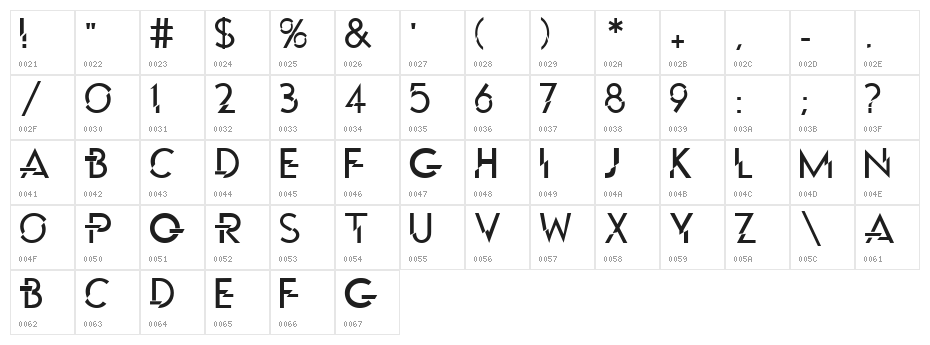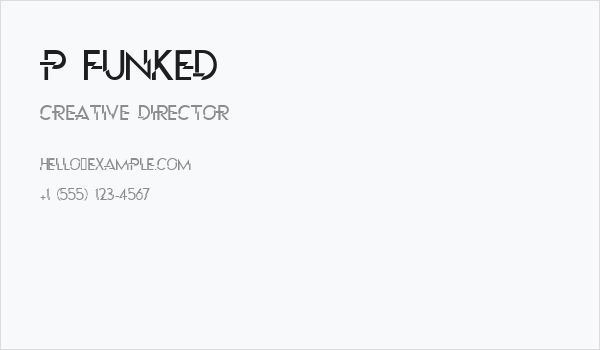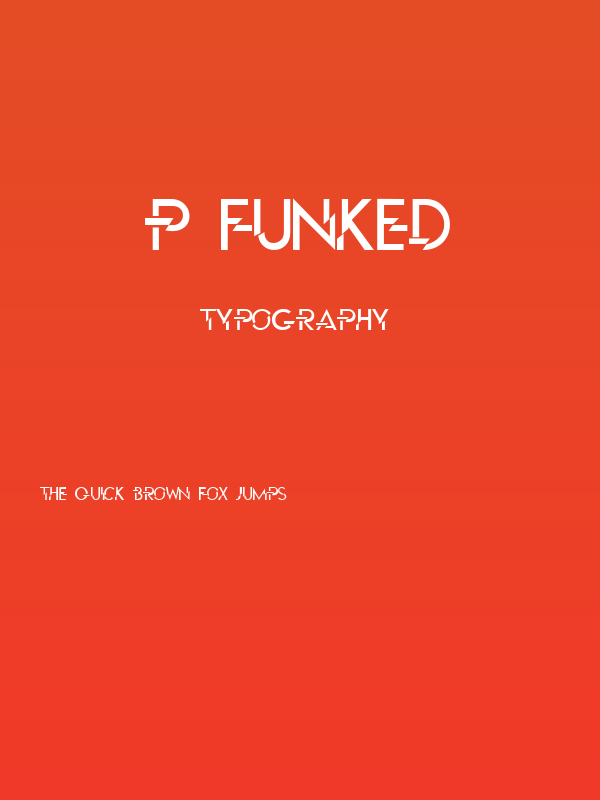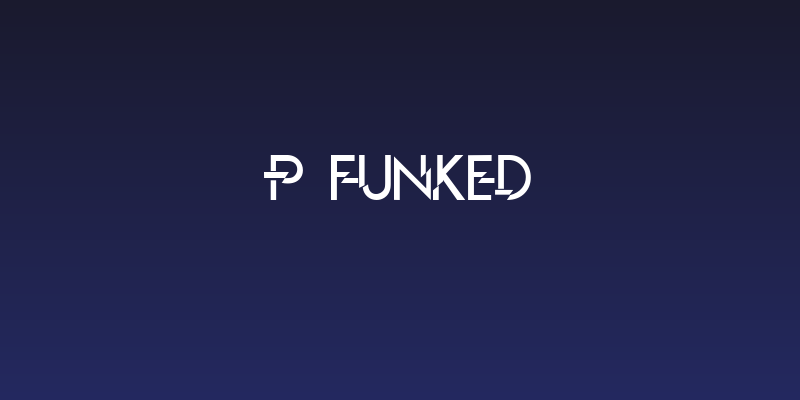
P Funked Font
P Funked Description
This font features a bold and futuristic design with a distinct geometric style. Each character is crafted with sharp angles and clean lines, creating a sense of movement and energy. The letters are partially segmented, giving them a unique, fragmented appearance that adds a modern and edgy feel. The numbers and special characters follow the same design principles, ensuring consistency across the typeface. This font is ideal for projects that require a contemporary and dynamic look, making it perfect for branding, advertising, and digital media.